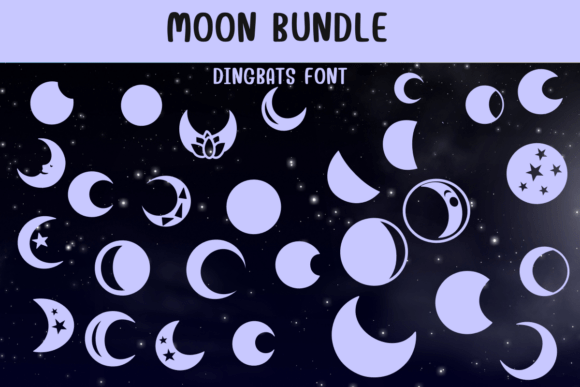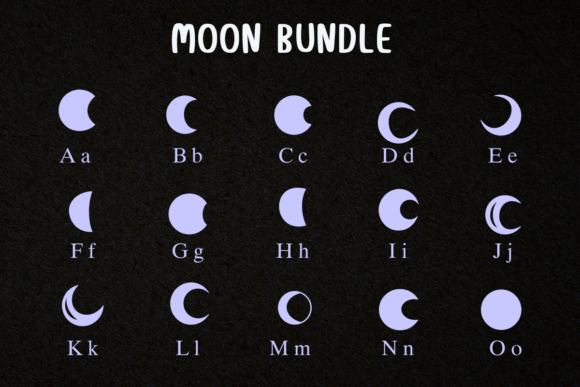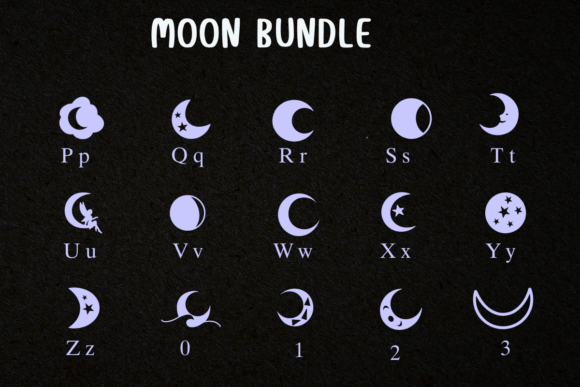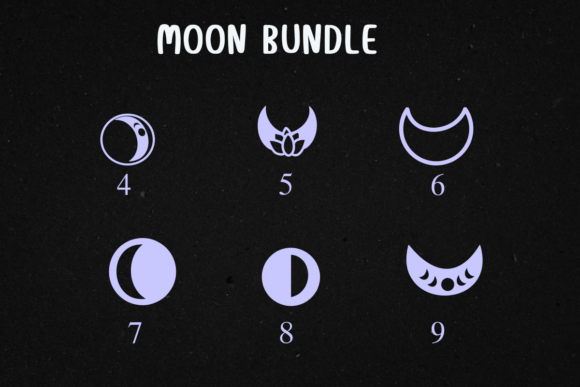
Moon Bundle Font
About the Moon Bundle Font
Add a touch of class to your work with the Moon Bundle Font, a truly exceptional typeface. Moon Bundle Dingbats Font is a mystical and celestial-themed dingbat typeface featuring a variety of moon phase icons, crescent silhouettes, and cosmic designs. Perfect for astrology projects, spiritual branding, boho crafts, scrapbooking, and celestial event invitations. Add a dreamy, magical vibe to your creative work with a single keystroke.
Its mystical charm makes Moon Bundle ideal for branding projects emphasizing spirituality, astrology, or the occult, particularly logos, short taglines, and social media graphics. It also excels in invitations, packaging for esoteric products, and decorative elements within larger designs. However, its intricate detail and symbolic nature make it unsuitable for body text or UI elements requiring high readability.
For a balanced aesthetic, pair Moon Bundle with a clean sans-serif like Lato for body copy or a classic serif like Garamond for more formal applications. A playful script font, such as Pacifico, can enhance its whimsical side in projects needing a touch of handwritten charm. The font’s overall personality is whimsical yet sophisticated, lending itself to projects that require a touch of magic and mystery.